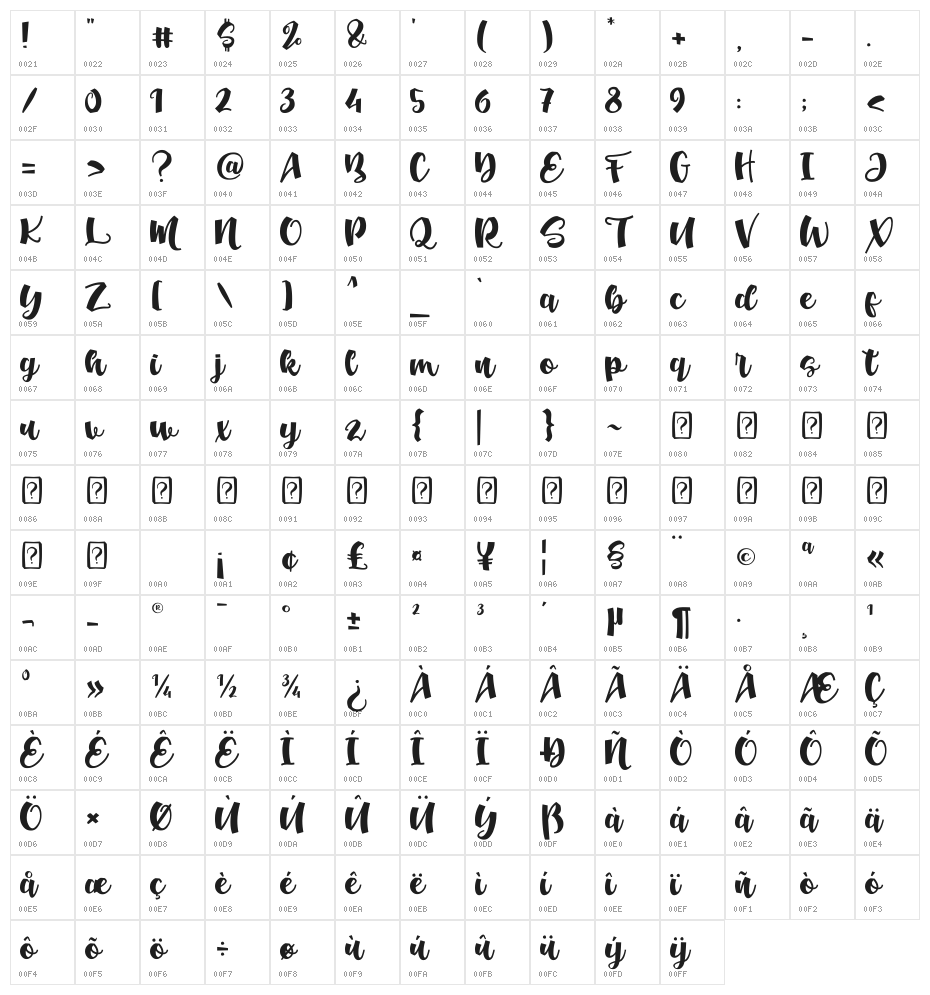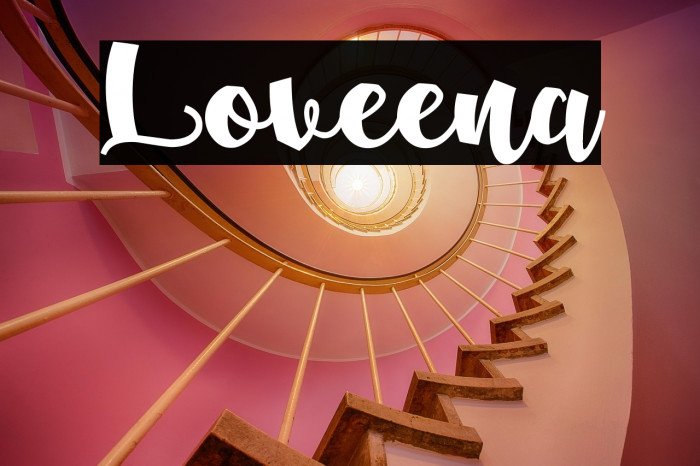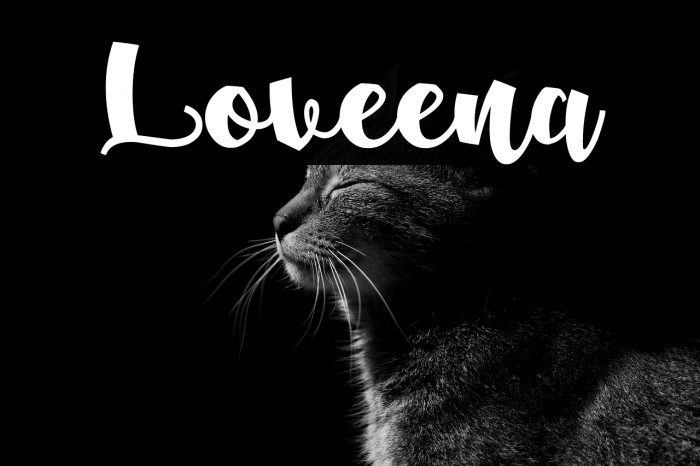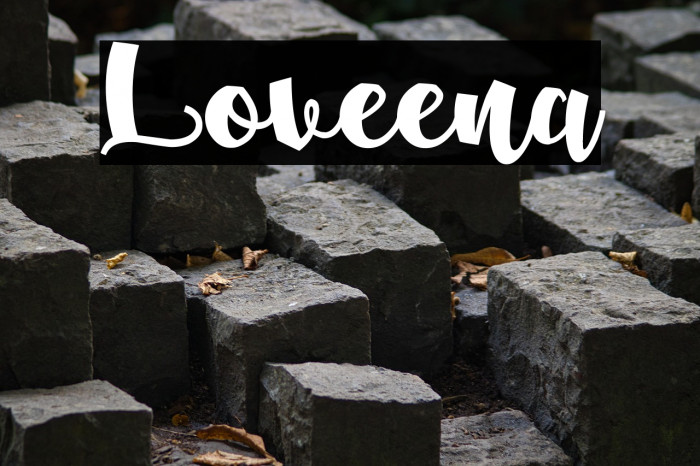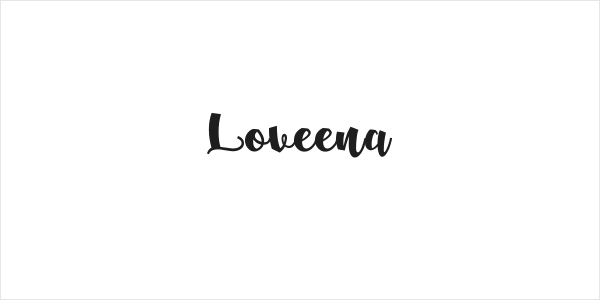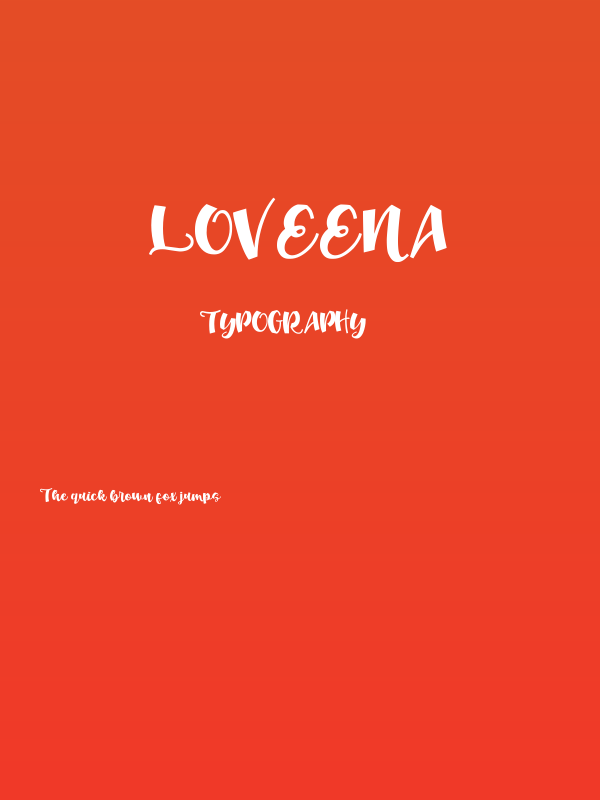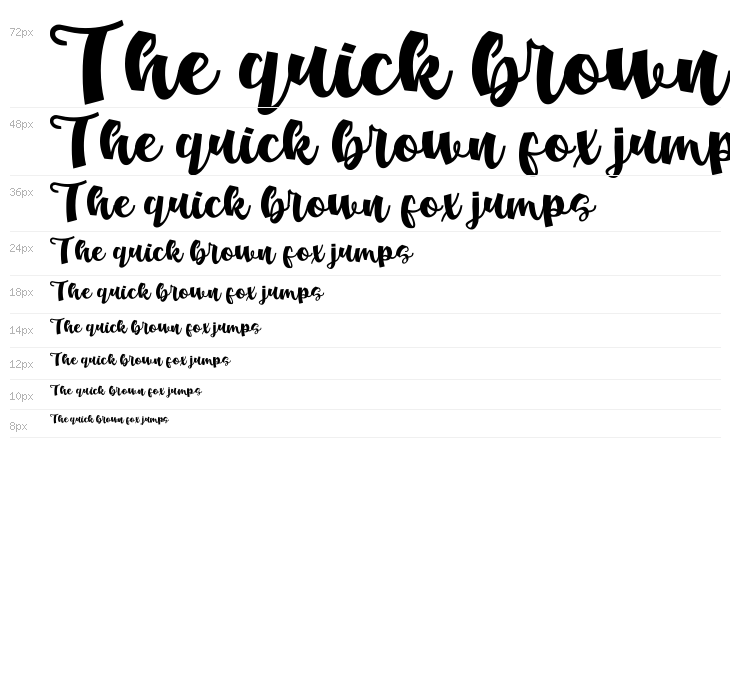
Loveena Font
Loveena Description
This font features a bold and expressive style with a handwritten, brush-like appearance. The characters are fluid and dynamic, with varying stroke widths that create a lively and energetic feel. The uppercase letters are particularly striking, with a mix of sharp angles and smooth curves, while the lowercase letters maintain a consistent flow. The numerals are equally bold, complementing the overall aesthetic. Special characters are creatively designed, adding to the font's playful and artistic nature. This font is ideal for projects that require a personal touch or a sense of creativity and flair.